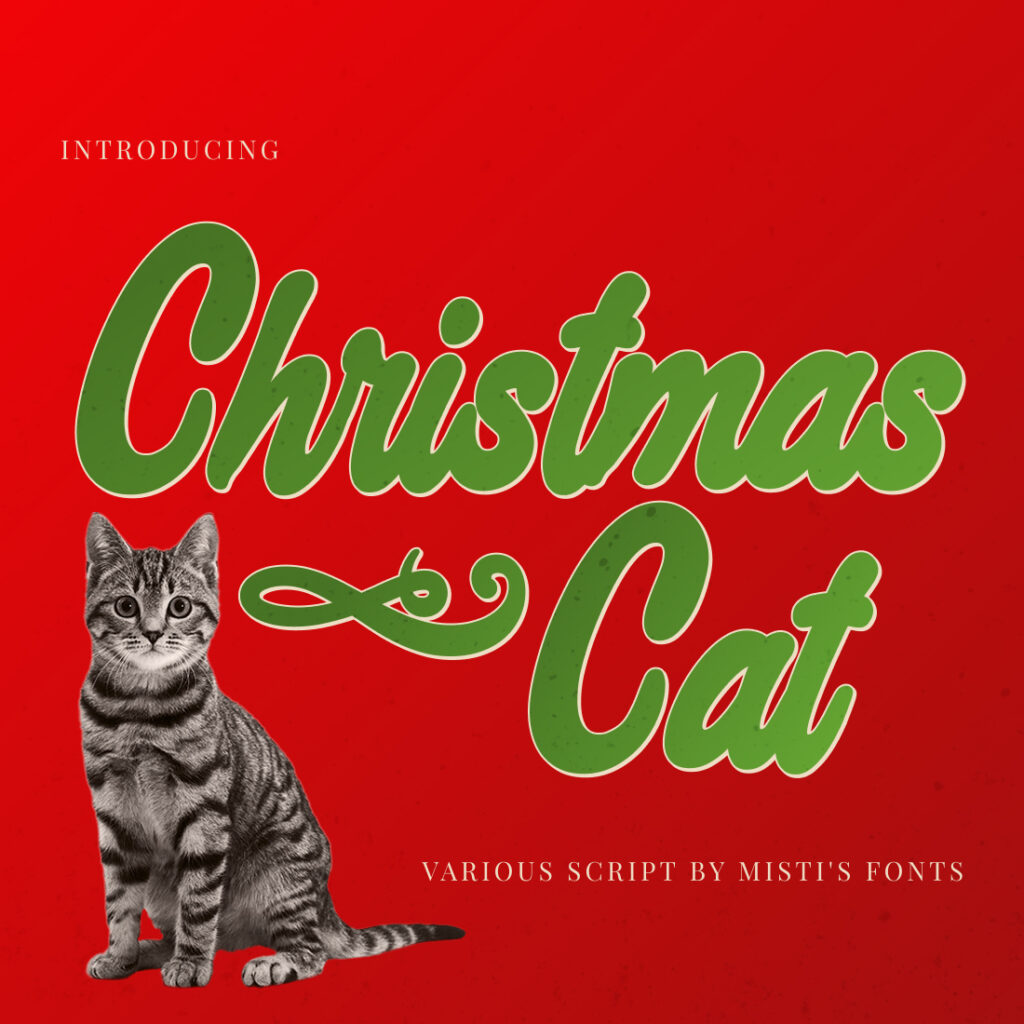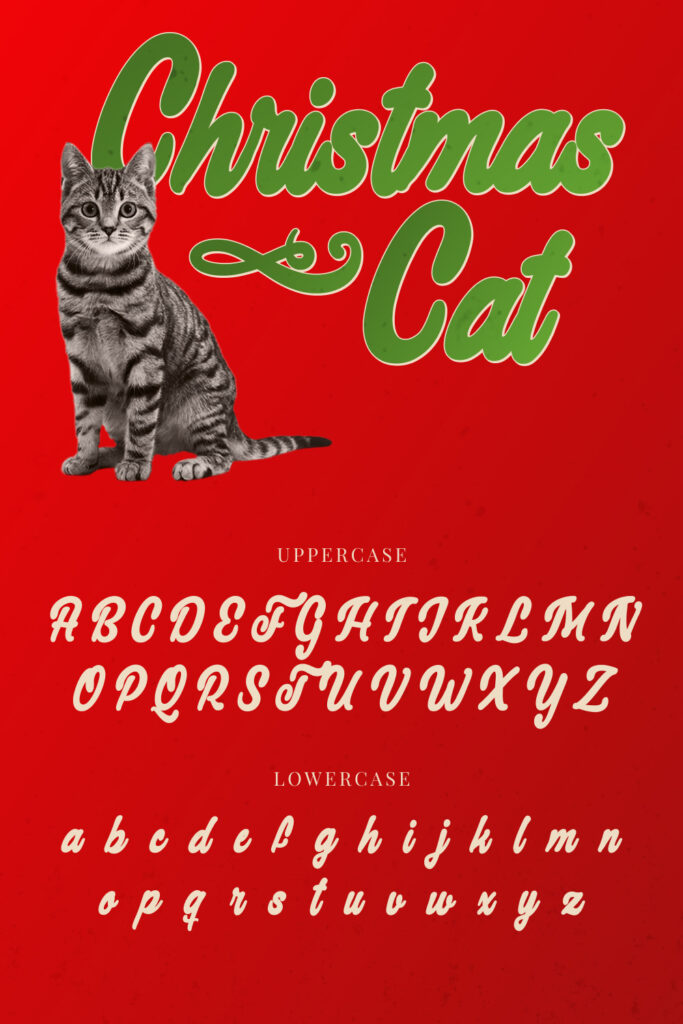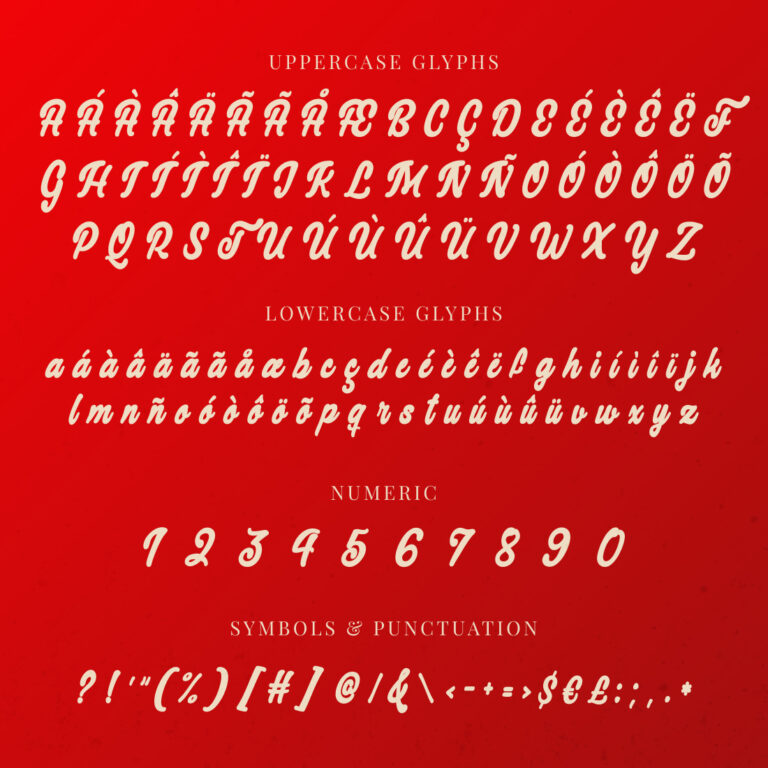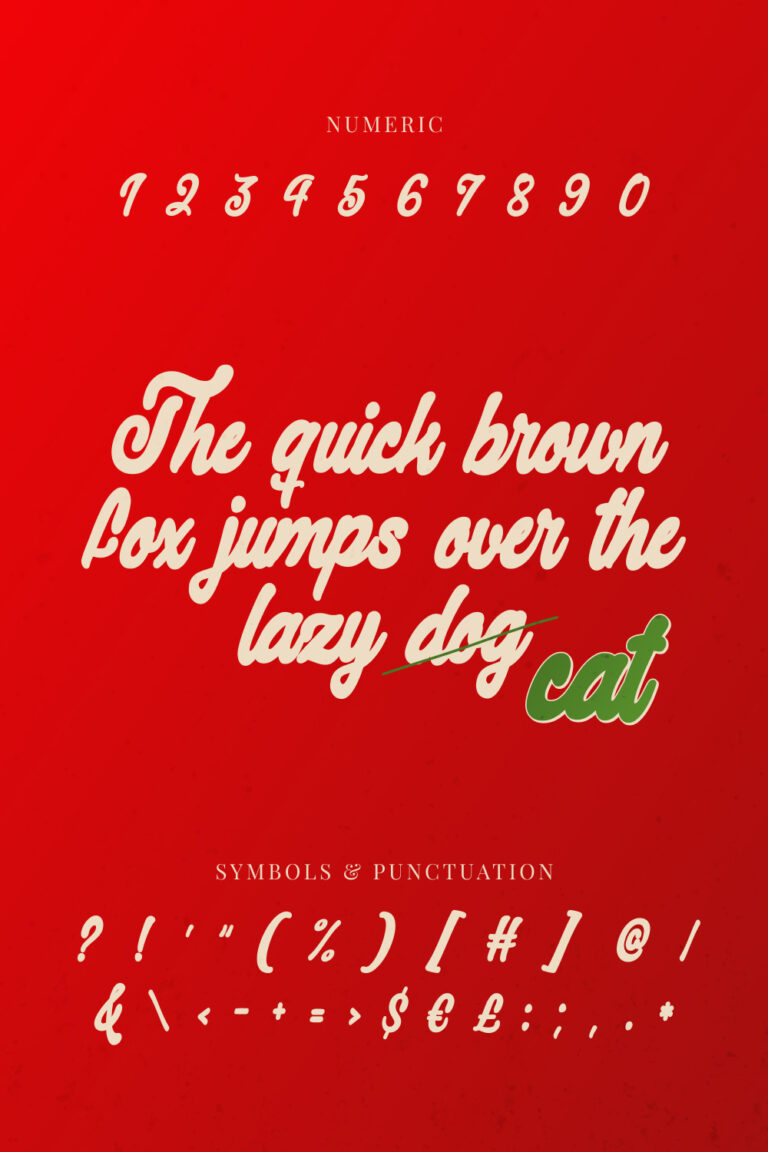
Christmas Cat Font . This font is perfect for your festive crafts, such as christmas cards, new year’s invites, but also works great for making quotes, and sayings. Download christmas cat font · free for personal use · the christmas cat is cute and festive script font. Christmas cat font download is available free from fontget. This font is perfect for your festive crafts, such as christmas cards, new year’s invites, but also works great for making quotes, and sayings. This font is perfect for your festive. The christmas cat is cute and festive script font. This font is perfect for your festive crafts, such as christmas cards, new year’s. The christmas cat is cute and festive script font. 1,209,777 downloads (409 yesterday) 12 comments free for personal use. Christmas cat is a free font for personal use created by misti's fonts. This font is perfect for your festive crafts, such as christmas cards, new year’s invites, but also works great for making quotes, and. The christmas cat is cute and festive script font. The christmas cat is cute and festive script font.
This font is perfect for your festive crafts, such as christmas cards, new year’s invites, but also works great for making quotes, and sayings. The christmas cat is cute and festive script font. This font is perfect for your festive. This font is perfect for your festive crafts, such as christmas cards, new year’s invites, but also works great for making quotes, and. Christmas cat is a free font for personal use created by misti's fonts. 1,209,777 downloads (409 yesterday) 12 comments free for personal use. Download christmas cat font · free for personal use · the christmas cat is cute and festive script font. Christmas cat font download is available free from fontget. This font is perfect for your festive crafts, such as christmas cards, new year’s invites, but also works great for making quotes, and sayings. The christmas cat is cute and festive script font.
Christmas Cat Font Download christmas cat font · free for personal use · the christmas cat is cute and festive script font. Christmas cat is a free font for personal use created by misti's fonts. This font is perfect for your festive crafts, such as christmas cards, new year’s. This font is perfect for your festive. Christmas cat font download is available free from fontget. The christmas cat is cute and festive script font. This font is perfect for your festive crafts, such as christmas cards, new year’s invites, but also works great for making quotes, and sayings. 1,209,777 downloads (409 yesterday) 12 comments free for personal use. This font is perfect for your festive crafts, such as christmas cards, new year’s invites, but also works great for making quotes, and sayings. The christmas cat is cute and festive script font. Download christmas cat font · free for personal use · the christmas cat is cute and festive script font. This font is perfect for your festive crafts, such as christmas cards, new year’s invites, but also works great for making quotes, and. The christmas cat is cute and festive script font.
Christmas Cat font Font Tr Christmas Cat Font Download christmas cat font · free for personal use · the christmas cat is cute and festive script font. This font is perfect for your festive crafts, such as christmas cards, new year’s invites, but also works great for making quotes, and. 1,209,777 downloads (409 yesterday) 12 comments free for personal use. This font is perfect for your festive crafts,. Christmas Cat Font.
Christmas Cat Fonts Shmonts Christmas Cat Font The christmas cat is cute and festive script font. Christmas cat font download is available free from fontget. The christmas cat is cute and festive script font. This font is perfect for your festive. This font is perfect for your festive crafts,. Christmas Cat Font.
Christmas Cat free font Christmas Cat Font This font is perfect for your festive crafts, such as christmas cards, new year’s. 1,209,777 downloads (409 yesterday) 12 comments free for personal use. This font is perfect for your festive. The christmas cat is cute and festive script font. Christmas cat is a free font for personal use created by. Christmas Cat Font.
Christmas Cat Font Misti's Fonts FontSpace Christmas Cat Font Christmas cat font download is available free from fontget. This font is perfect for your festive crafts, such as christmas cards, new year’s invites, but also works great for making quotes, and. The christmas cat is cute and festive script font. This font is perfect for your festive crafts, such as christmas cards, new year’s invites, but also works great. Christmas Cat Font.
70+ Free Christmas Fonts (and Where to Download) Christmas HQ Christmas Cat Font The christmas cat is cute and festive script font. Download christmas cat font · free for personal use · the christmas cat is cute and festive script font. This font is perfect for your festive crafts, such as christmas cards, new year’s. The christmas cat is cute and festive script font. Christmas cat is a free font for personal use. Christmas Cat Font.
Christmas Cat font Font Tr Christmas Cat Font This font is perfect for your festive. The christmas cat is cute and festive script font. This font is perfect for your festive crafts, such as christmas cards, new year’s. The christmas cat is cute and festive script font. This font is perfect for your festive crafts, such as christmas cards,. Christmas Cat Font.
Christmas Cat Windows font free for Personal Christmas Cat Font 1,209,777 downloads (409 yesterday) 12 comments free for personal use. The christmas cat is cute and festive script font. Christmas cat font download is available free from fontget. This font is perfect for your festive crafts, such as christmas cards, new year’s invites, but also works great for making quotes, and sayings. The christmas cat is cute and festive script. Christmas Cat Font.
Christmas Cat font Font Tr Christmas Cat Font This font is perfect for your festive. This font is perfect for your festive crafts, such as christmas cards, new year’s invites, but also works great for making quotes, and. 1,209,777 downloads (409 yesterday) 12 comments free for personal use. The christmas cat is cute and festive script font. This font. Christmas Cat Font.
Christmas Cat Font Download christmas cat font · free for personal use · the christmas cat is cute and festive script font. This font is perfect for your festive crafts, such as christmas cards, new year’s invites, but also works great for making quotes, and. The christmas cat is cute and festive script font. This font is perfect for your festive. This font. Christmas Cat Font.